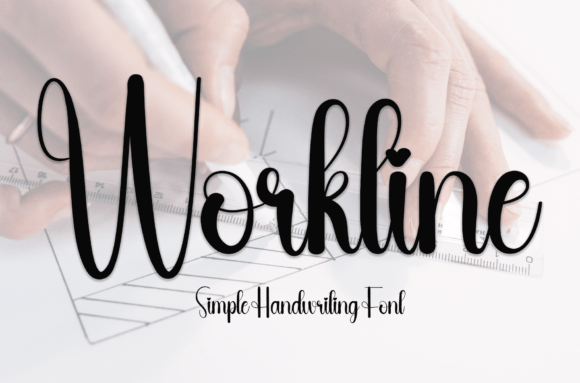
Discover Workline Font - A Script Font That's Perfect for Black Backgrounds!
With its charming handwritten style, Workline Font is the perfect choice for creating memorable designs that exude warmth and personality. This font family, meticulously crafted by William Jhody, offers a unique blend of elegance and playfulness, making it ideal for a wide range of creative projects.
Unleash Your Creativity on a Black Canvas:
Workline Font truly shines when paired with a black background. The contrast between the crisp white letters and the deep, dark backdrop creates a striking visual effect that demands attention. This combination is perfect for creating eye-catching logos, posters, social media graphics, and other design elements that are sure to leave a lasting impression.
Express Your Love with Workline Font:
The sweet and friendly nature of Workline Font makes it an excellent choice for expressing love and affection. Use this font to create heartfelt wedding invitations, anniversary cards, and love letters that convey your deepest emotions in a charming and unforgettable way.
Add a Personal Touch to Your Designs:
Workline Font's handwritten style gives your designs a personal, handcrafted feel. It's as if you've carefully written each letter yourself, adding a touch of warmth and authenticity to your work. This font is perfect for creating designs that feel genuine and connected to your audience.
Endless Creative Possibilities:
Whether you're designing a whimsical poster for a children's event, a sophisticated invitation for a formal gathering, or a playful social media post, Workline Font is up to the task. Its versatility allows you to explore endless creative possibilities and bring your unique vision to life.